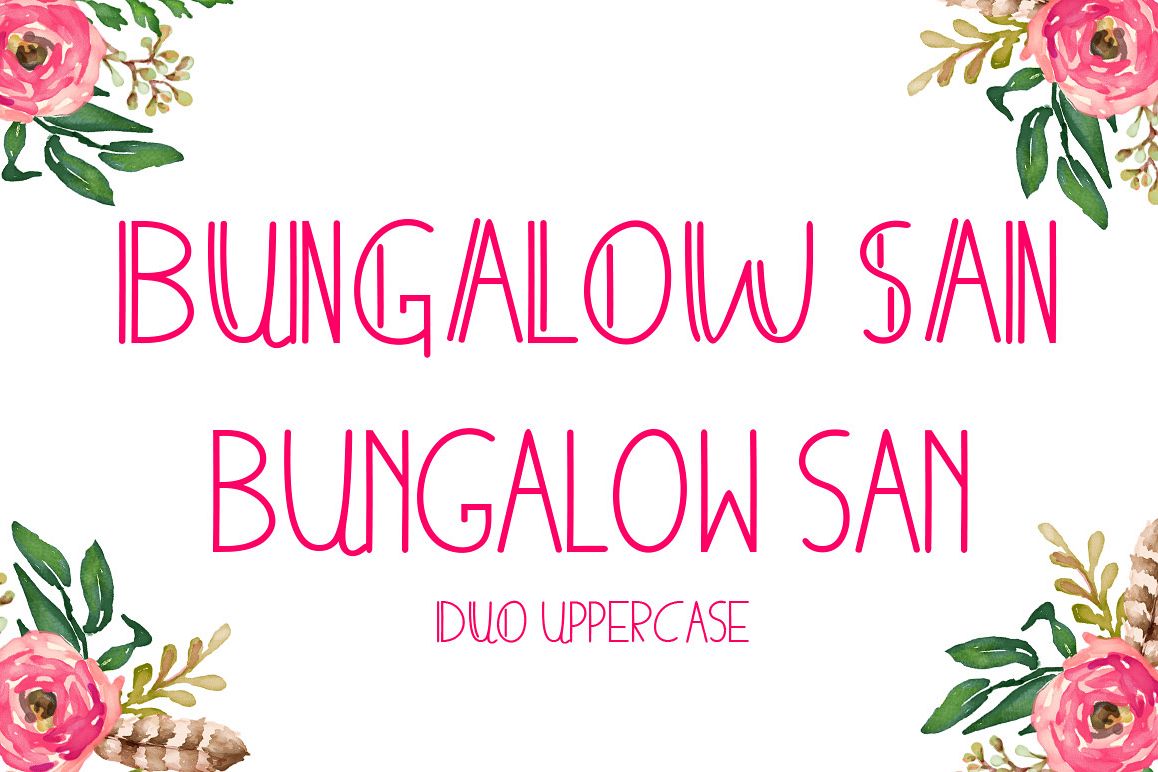
BUNGALOWSAN Description
Bungalosan is a quirky handwritten font. This playful sans-serif will look so cute on your logo's, cards, invites, and any other fun projects you are working on. This font also works perfectly when pairing it with a script font.